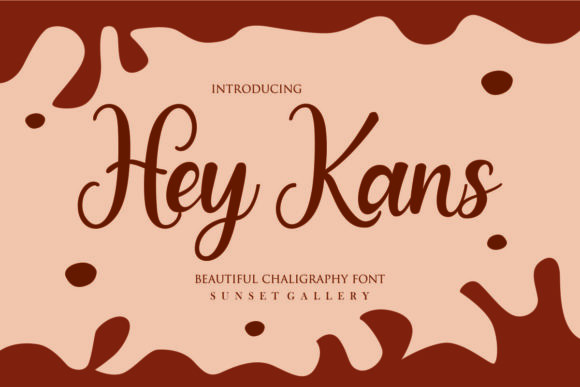
Immerse yourself in the captivating allure of Hey Kans, a mesmerizing script font designed to ignite your creativity. Crafted with meticulous care by the renowned Sunset Gallery, Hey Kans embodies the essence of elegance and sophistication.
Unleash the power of this exceptional font to elevate your designs with an air of timeless charm. Its meticulously crafted curves and graceful strokes dance across the page, creating a harmonious symphony of aesthetic delight.
Indulge in the versatility of Hey Kans, perfectly suited for a myriad of creative endeavors. From captivating pull quotes that demand attention to enchanting logos that leave a lasting impression, Hey Kans transforms your words into works of art.
With Hey Kans, you'll discover a font that effortlessly blends classic beauty with modern flair. Its timeless appeal ensures that your designs will stand the test of time, captivating audiences with their enduring grace.
Embrace the transformative power of Hey Kans and elevate your designs to new heights. Let its enchanting script ignite your imagination and create masterpieces that resonate with audiences on a profound level.
Experience the allure of Hey Kans today and unlock a world of creative possibilities. Its captivating charm and undeniable beauty await your discovery. Embrace the font that empowers you to craft designs that leave an unforgettable mark on the world.